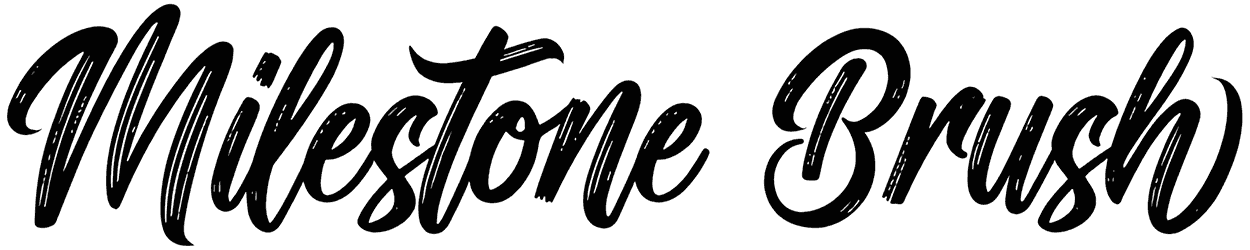
Milestone Brush Font
Sick of looking at brush characters all day? Well, man up because we’re nowhere near finished. And think we’ll never be! As you can see, we’re just about to introduce yet another one of them. Maybe you liked this one even more. Who knows?
We’re just going to take a step back and let you get acquainted with Milestone Brush, our newest member of the brush font category, probably great at branding food or advertising summer camps. Don’t you think so?